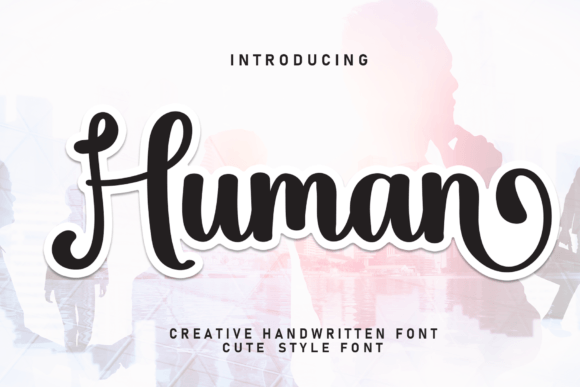
Introducing Human Font: The Sweet and Friendly Handwritten Font for Your Creative Projects
Are you looking for a font that can add a personal touch to your designs? Do you want to create beautiful wedding invitations, greeting cards, or social media posts that stand out from the crowd? Look no further than Human Font, a sweet and friendly handwritten font that’s perfect for adding a fun touch to your creative projects.
What is Human Font?
Human Font is a beautiful, handmade font that’s designed to bring a sense of warmth and personality to your designs. This cute and versatile font is ideal for writing wedding invitations, cards, or any other design that might need a fun touch. With its unique and elegant handwriting style, Human Font is sure to make your designs stand out from the crowd.
Key Features of Human Font
- Handwritten style: Human Font has a beautiful, handwritten style that’s perfect for creating personal and unique designs.
- Cute and versatile: This font is ideal for a wide range of design projects, from wedding invitations and greeting cards to social media posts and blog headers.
- Elegant and refined: Despite its playful nature, Human Font has an elegant and refined feel that’s perfect for creating sophisticated designs.
- Easy to read: Human Font is clear and easy to read, making it perfect for body text and headlines.
10 Creative Ways to Use Human Font in Your Designs
- Wedding invitations: Human Font is perfect for creating beautiful and unique wedding invitations that set the tone for your special day.
- Greeting cards: This font is ideal for creating personalized greeting cards for birthdays, holidays, and other special occasions.
- Social media posts: Human Font can add a fun and playful touch to your social media posts, making them stand out from the crowd.
- Blog headers: Use Human Font to create eye-catching blog headers that draw readers in and make your content more engaging.
- Logos and branding: This font can be used to create unique and memorable logos and branding elements that reflect your brand’s personality.
- Product packaging: Human Font can add a personal touch to your product packaging, making it more appealing to customers.
- Signage and displays: This font is perfect for creating eye-catching signage and displays that grab attention and communicate your message.
- Invitations and announcements: Human Font can be used to create beautiful and elegant invitations and announcements for parties, events, and other special occasions.
- Menus and brochures: This font can add a touch of elegance and sophistication to your menus and brochures, making them more appealing to customers.
- Digital products: Human Font can be used to create visually appealing digital products, such as ebooks, workbooks, and courses.
The Benefits of Using Human Font in Your Designs
There are many benefits to using Human Font in your designs. Here are just a few:
- Unique and creative: Human Font can help you create unique and creative designs that stand out from the crowd.
- Personal touch: This font adds a personal touch to your designs, making them more relatable and engaging.
- Versatile: Human Font can be used in a wide range of design projects, from print materials to digital products.
- Elegant and refined: Despite its playful nature, Human Font has an elegant and refined feel that’s perfect for creating sophisticated designs.
Tips and Tricks for Getting the Most Out of Human Font
Here are a few tips and tricks for getting the most out of Human Font:
- Use it sparingly: Human Font is best used sparingly, as a accent font to add a touch of personality to your designs.
- Experiment with colors: This font looks great in a variety of colors, so don’t be afraid to experiment and find the perfect hue for your design.
- Pair it with other fonts: Human Font can be paired with other fonts to create a unique and visually appealing design.
- Use it for headlines: This font is perfect for headlines and titles, where its playful and elegant feel can really shine.
In conclusion, Human Font is a beautiful and versatile handwritten font that’s perfect for adding a personal touch to your designs. With its unique and elegant style, this font is ideal for a wide range of design projects, from wedding invitations and greeting cards to social media posts and digital products. Whether you’re looking to create a fun and playful design or a more sophisticated and elegant one, Human Font is a great choice.